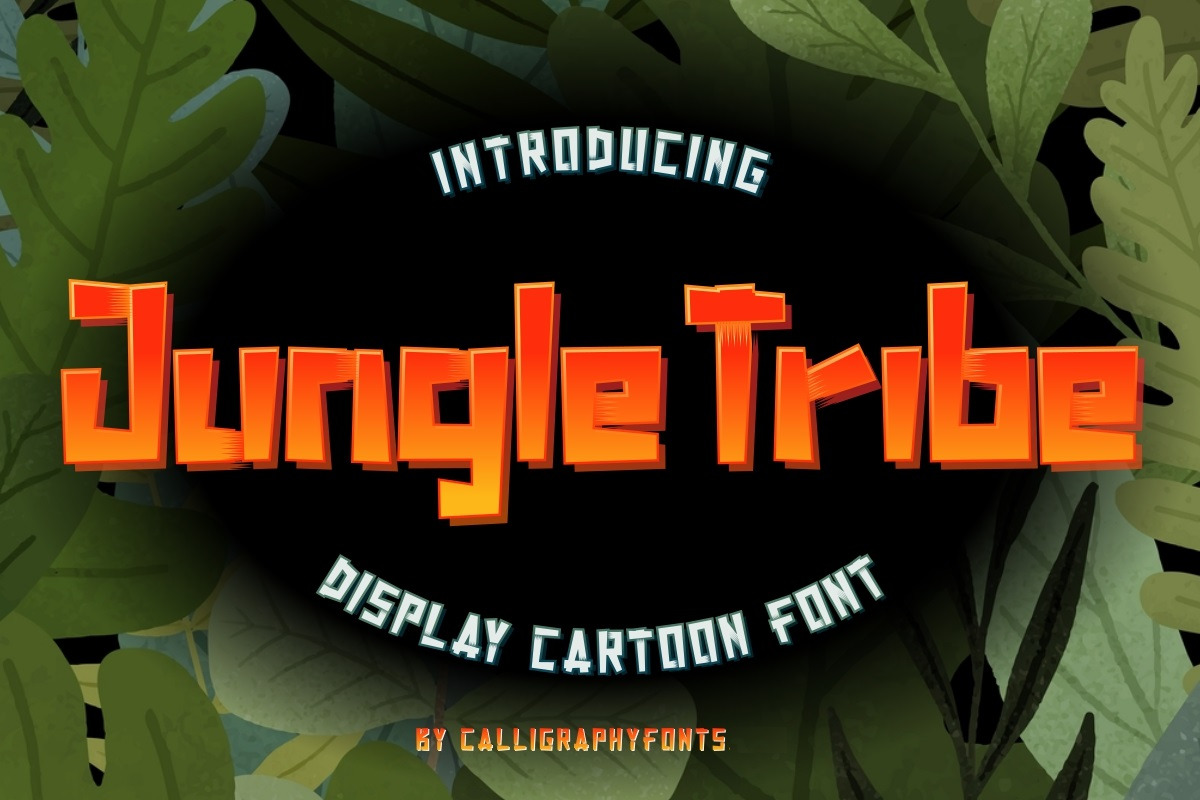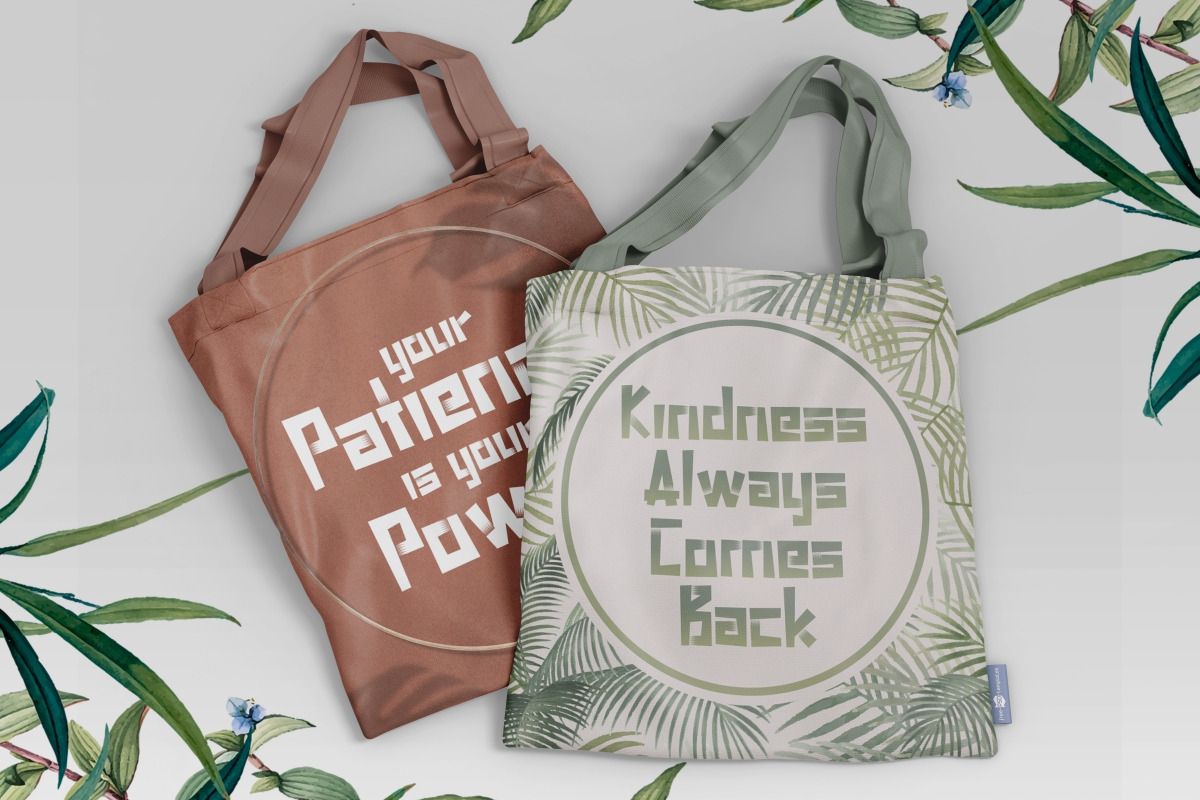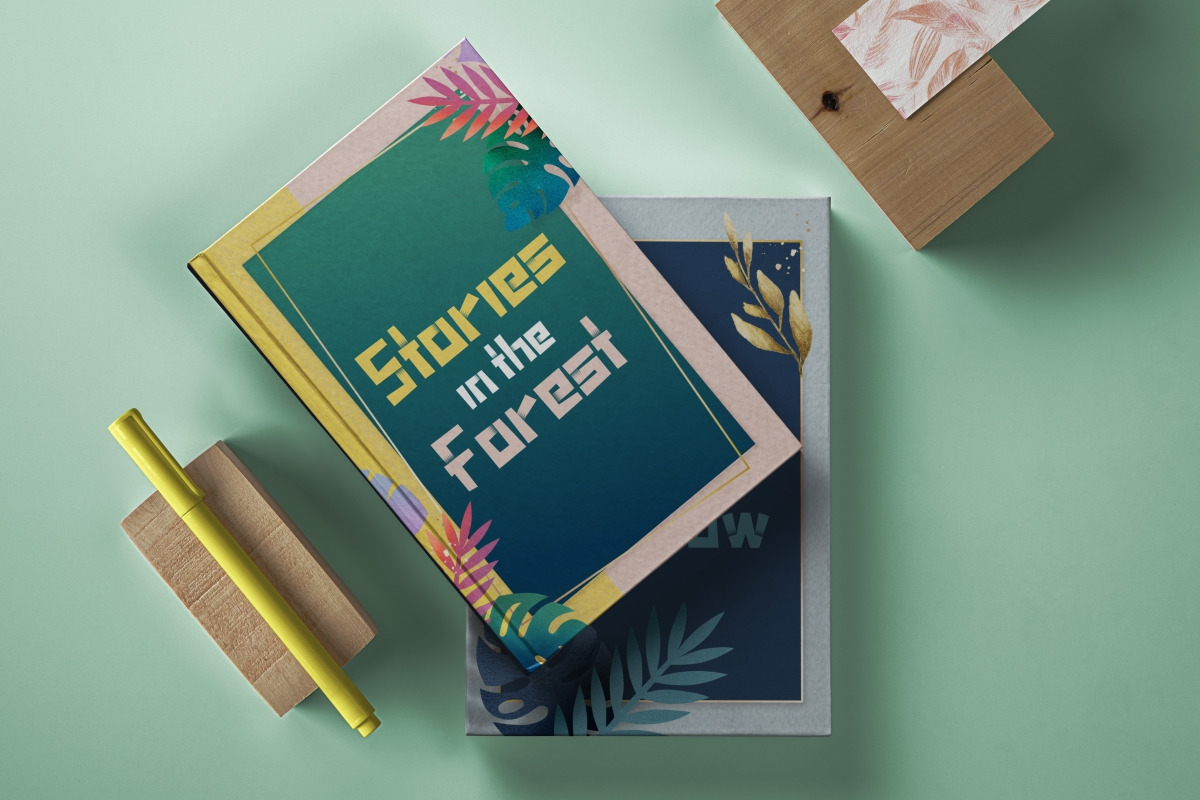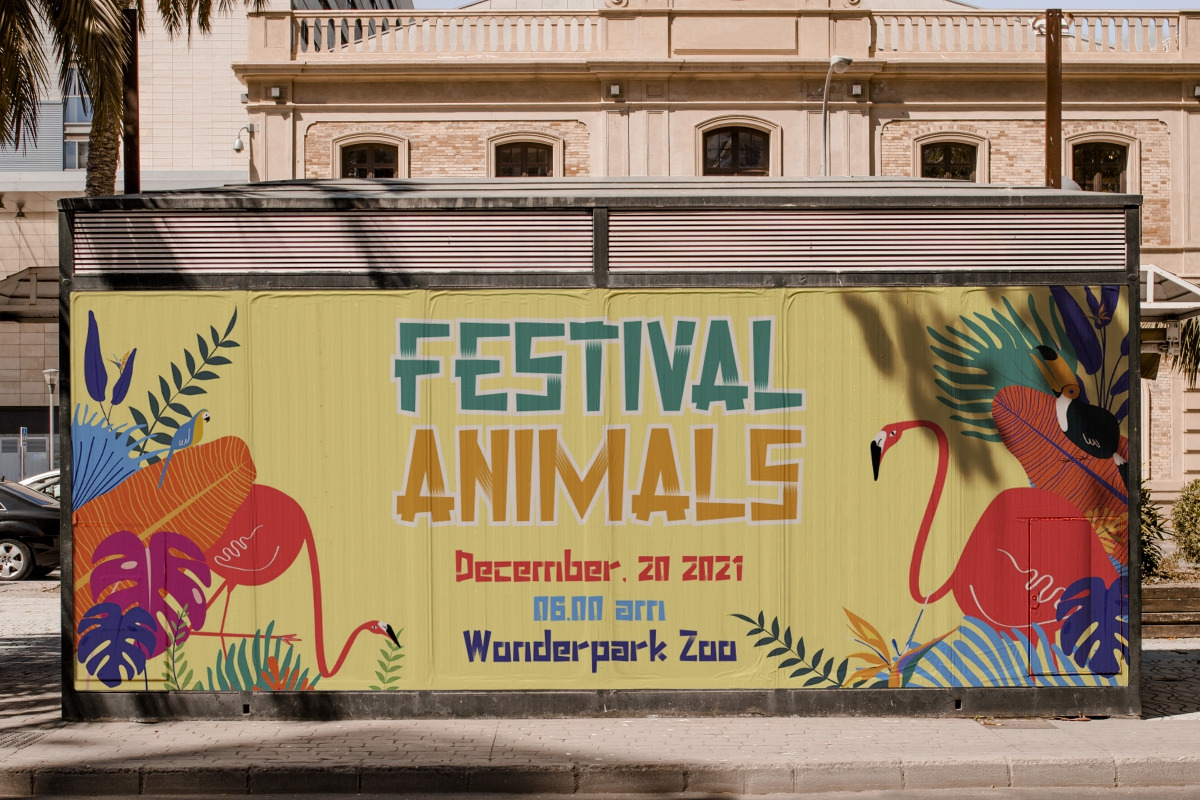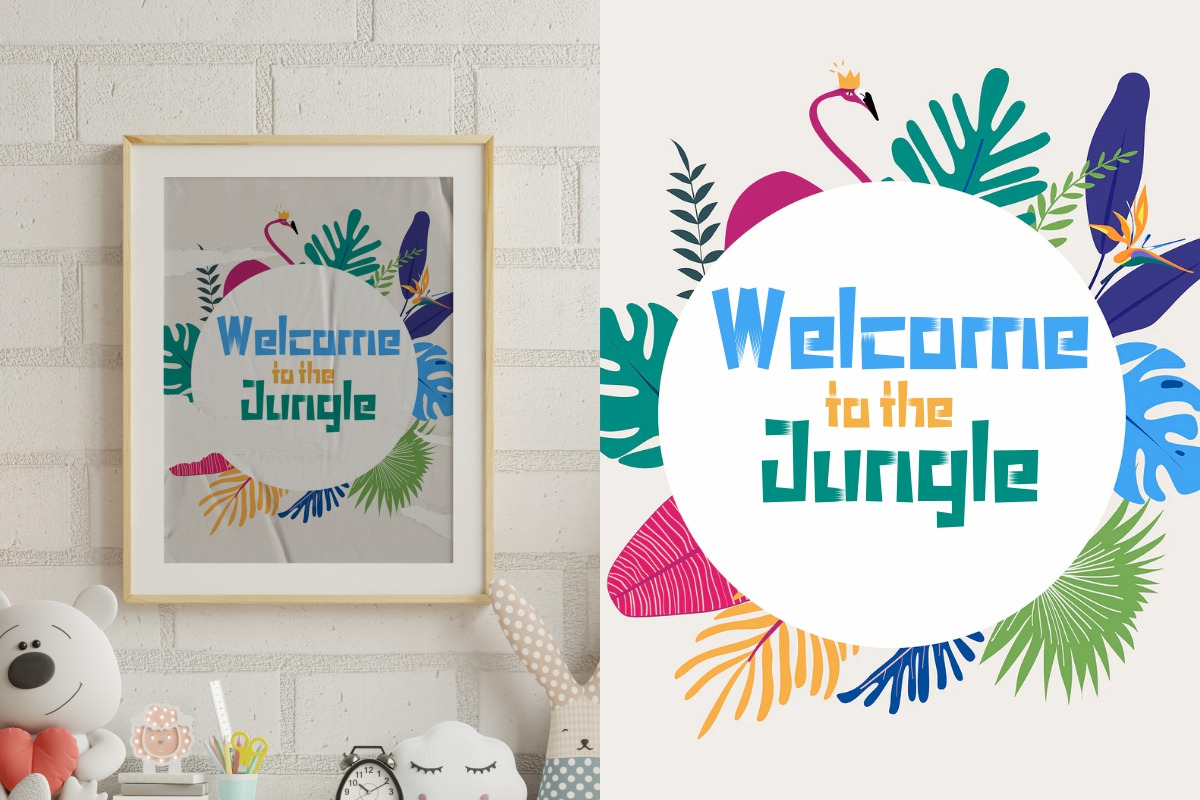
Jungle Tribe Cartoon Display Font
Jungle Tribe Font is a unique cartoon display font inspired by the zoo and textured is applied to the font as the special effect to gives this font looks more authentic, ethnic and fun! created especially for specific themes such as cultural, children, festival, jungle, vacation and many more! This font is suitable for clothing design, handcrafts, movie, title or just writing on the background
Jungle Tribe Font includes Uppercase and lowercase characters, Numbers & Punctuation and Multilingual characters. Powerful and thick lettered very interesting, this font will make each of your designs stand out. PUA Encoded Characters, fully accessible without additional design software. Works on PC & macOS. Accessible in the Adobe products (Illustrator, Photoshop, InDesign), even work on Microsoft Word.